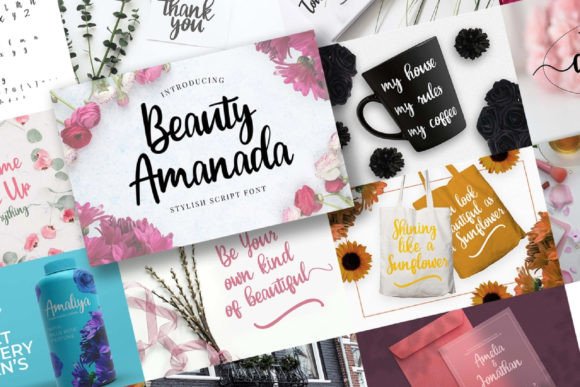
Dive into the world of Beauty Amanda, a captivating script font that whispers elegance and charm. Experience the allure of handwritten letters, carefully crafted to evoke a sense of warmth and authenticity. Its delicate strokes dance across the page, leaving behind a trail of visual delight.
With Beauty Amanda, your designs will blossom into a symphony of creativity. Imagine wedding invitations adorned with intricate calligraphy, their edges adorned with the soft hues of watercolor. Envision stationary art that captures the essence of timeless romance, each letter a testament to the power of love.
Step into the digital realm and let Beauty Amanda elevate your social media presence. Craft eye-catching posts that demand attention, their words dancing off the screen with an irresistible charm. Design greeting cards that embrace the joy of connection, each one a heartfelt expression of your sentiments.
Beauty Amanda is not just a font; it's an invitation to embark on a creative journey where imagination knows no bounds. Its versatility shines through, whether you're designing logos that exude sophistication or creating branding that radiates warmth and approachability.
With Beauty Amanda, you'll discover a font that weaves its way into the hearts of your audience. Its effortless beauty and timeless appeal make it the perfect choice for designers seeking to leave a lasting impression.
Embrace the enchantment of Beauty Amanda today and unlock a world of creative possibilities. Let your designs blossom, your words captivate, and your imagination soar.